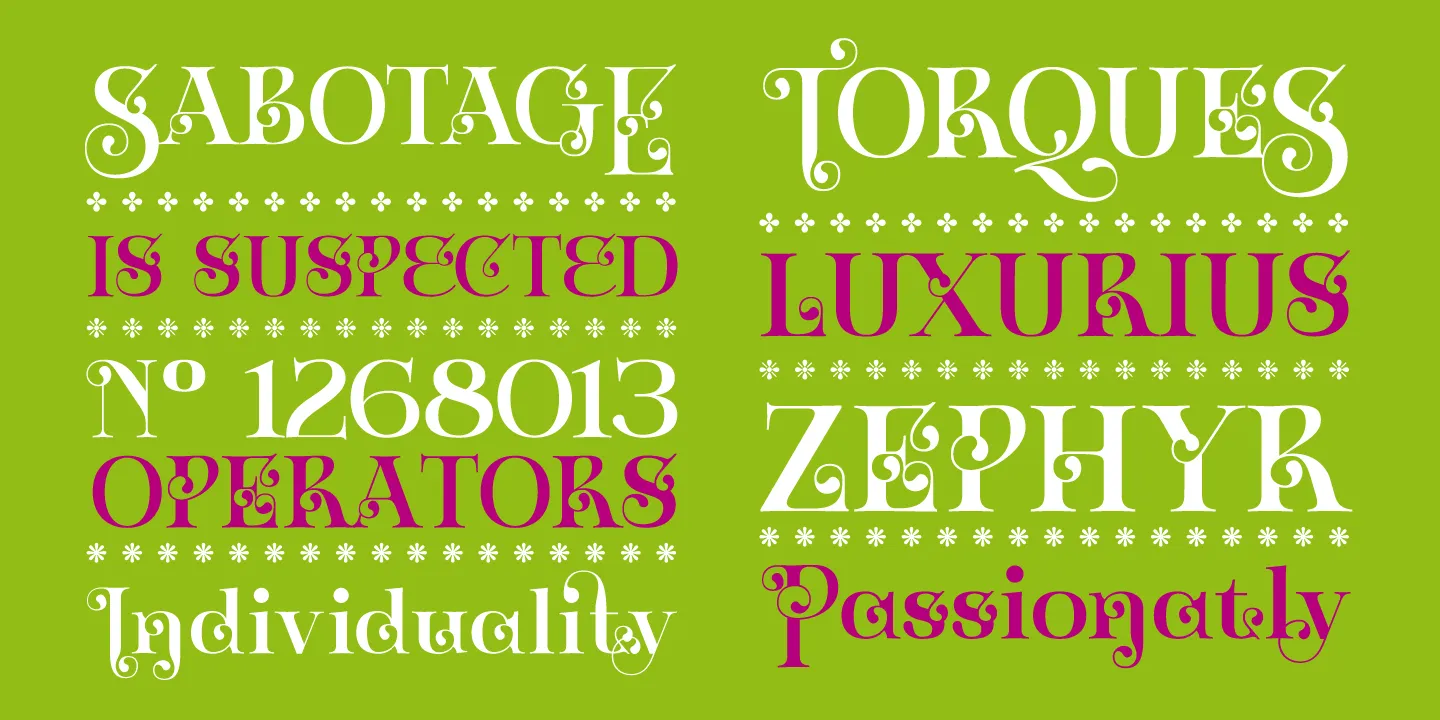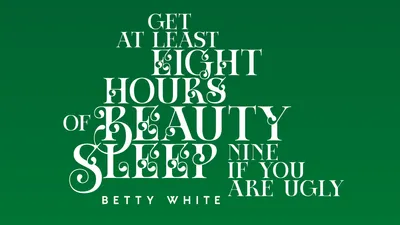
I am happy to announce the release of my latest typeface, Zoltana! A decorative, single weight serif typeface inspired by the Art Nouveau style, it is filled with Opentype features like Swash or Alternate letters, ligatures, small capitals and even a collection of typographic fleurons. So despite being simple, this single typeface can expand to offer many different solutions and layout possibilities! https://typogama.com/fonts/zoltana